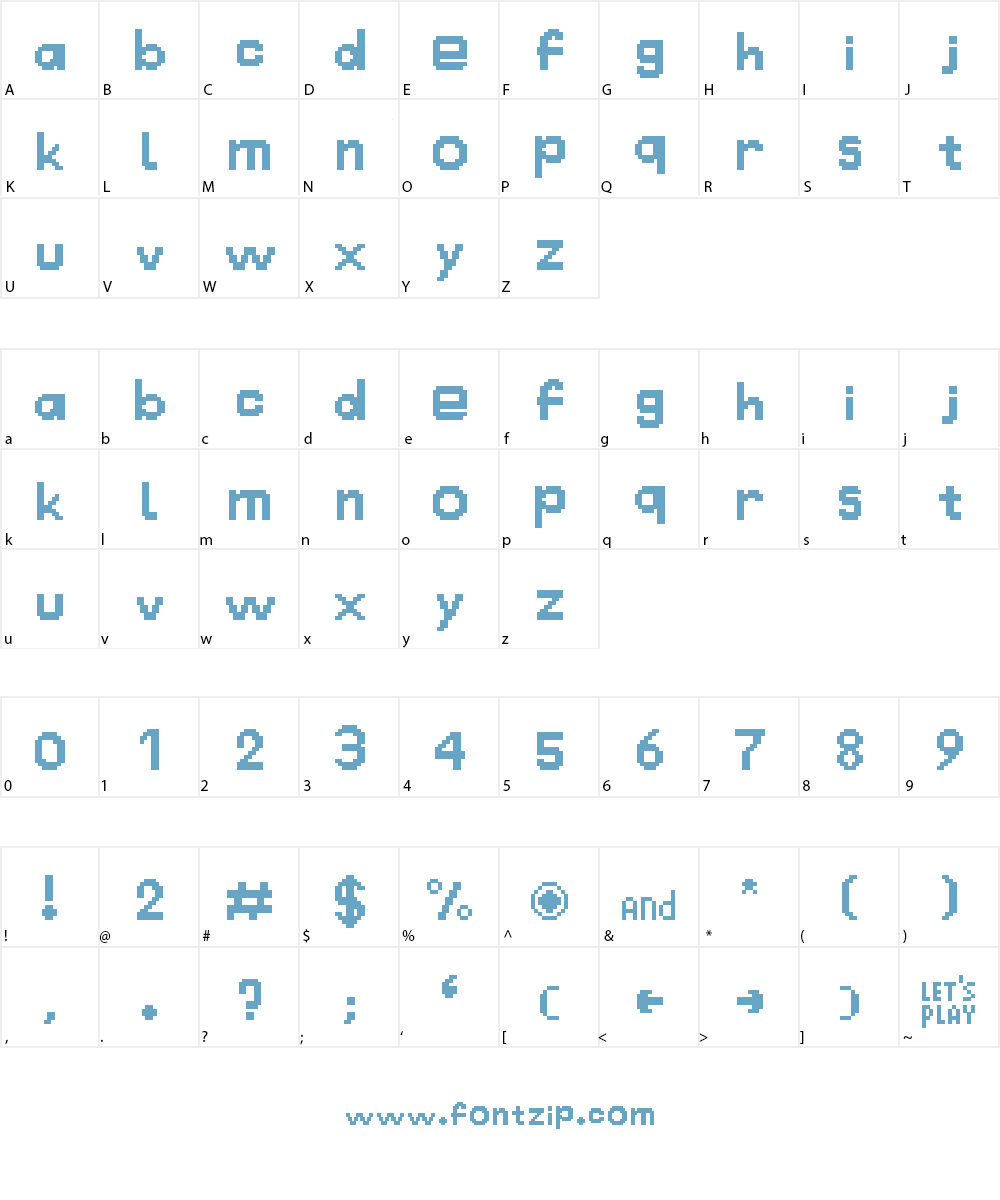
Hussar Danmaku is a childish bitmap font styled after Hussar. Danmaku is Japanese for Bullet Hell.
It's supposed to say in Polish language as "Piekło piekielne".